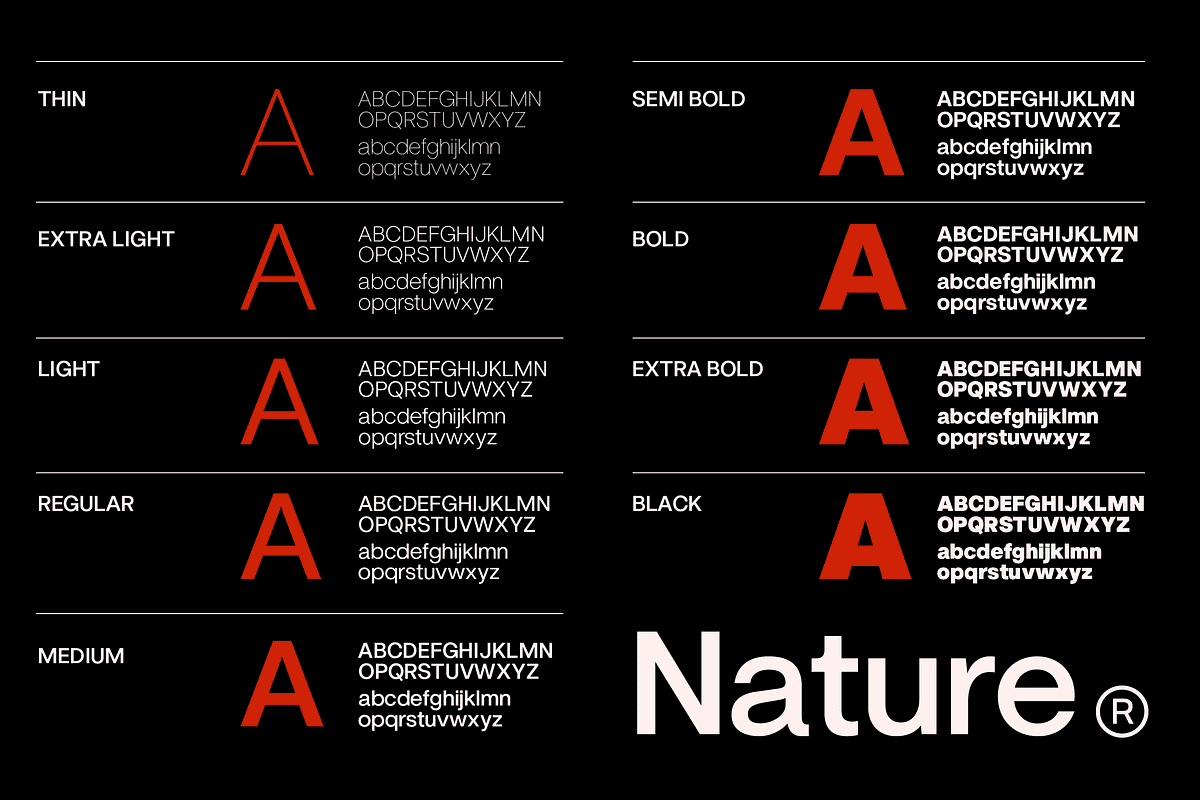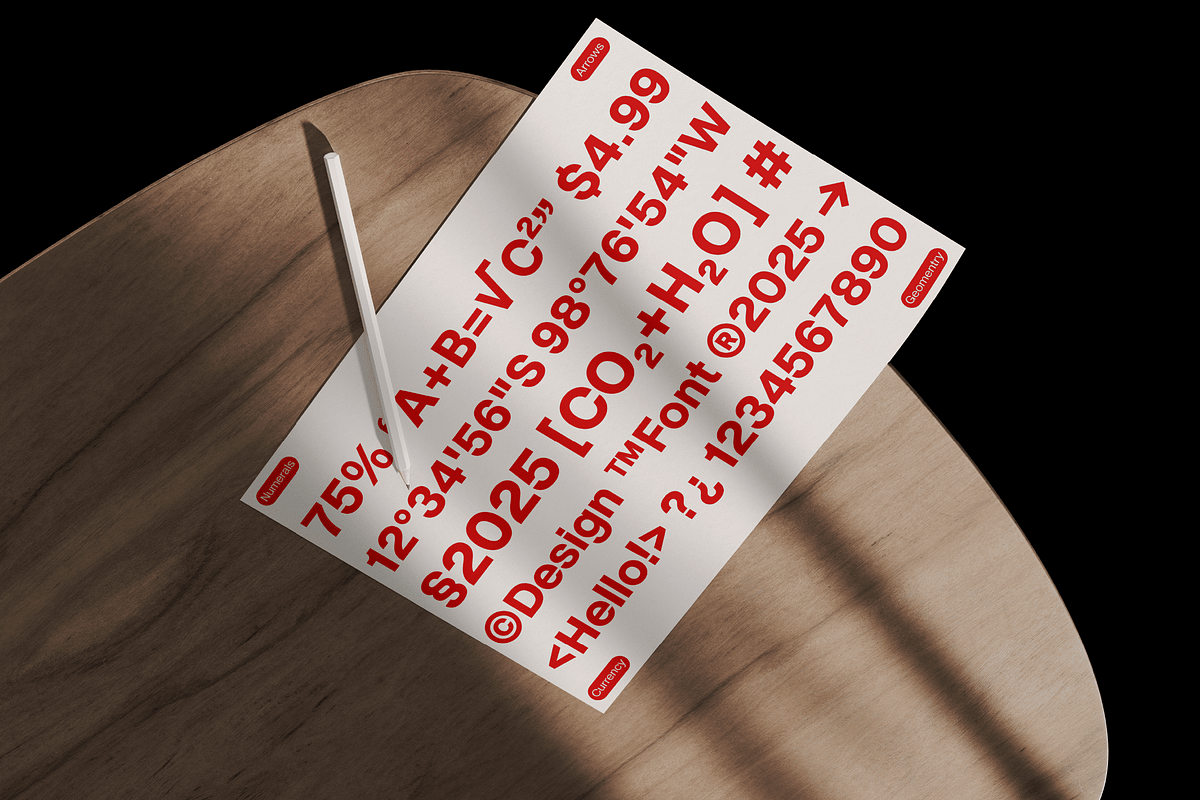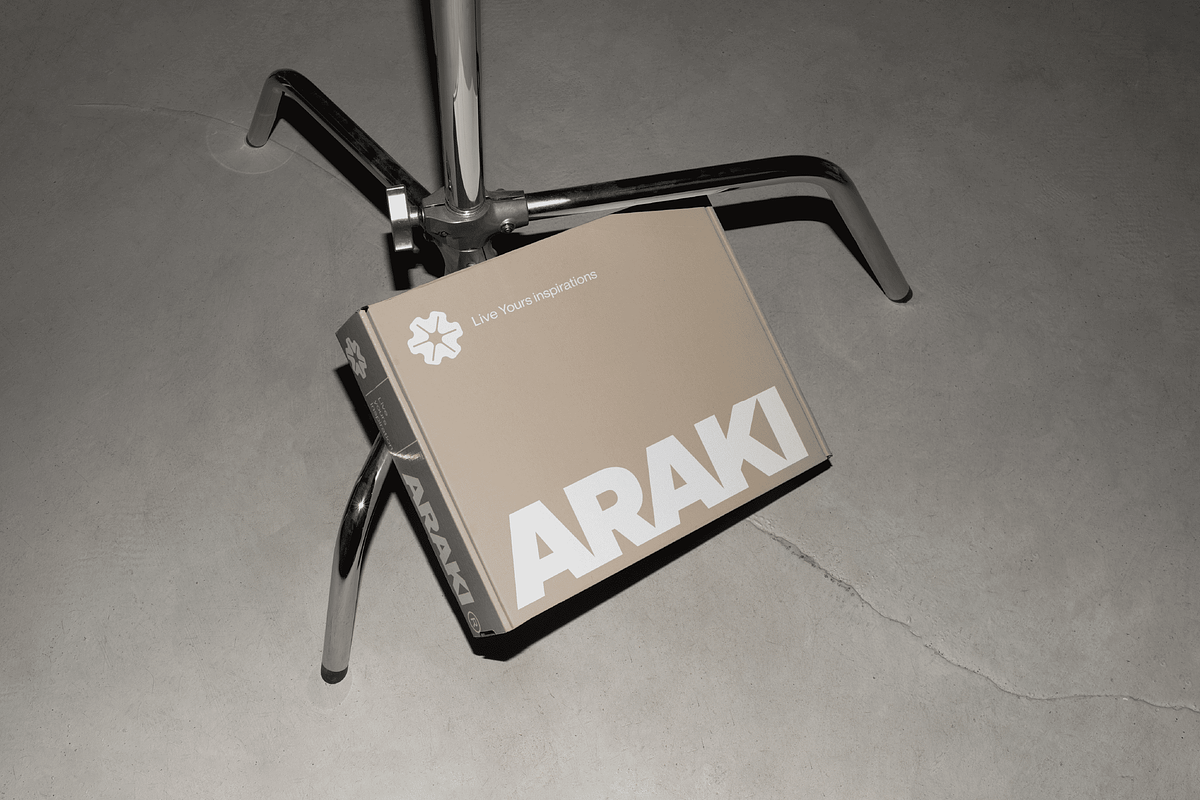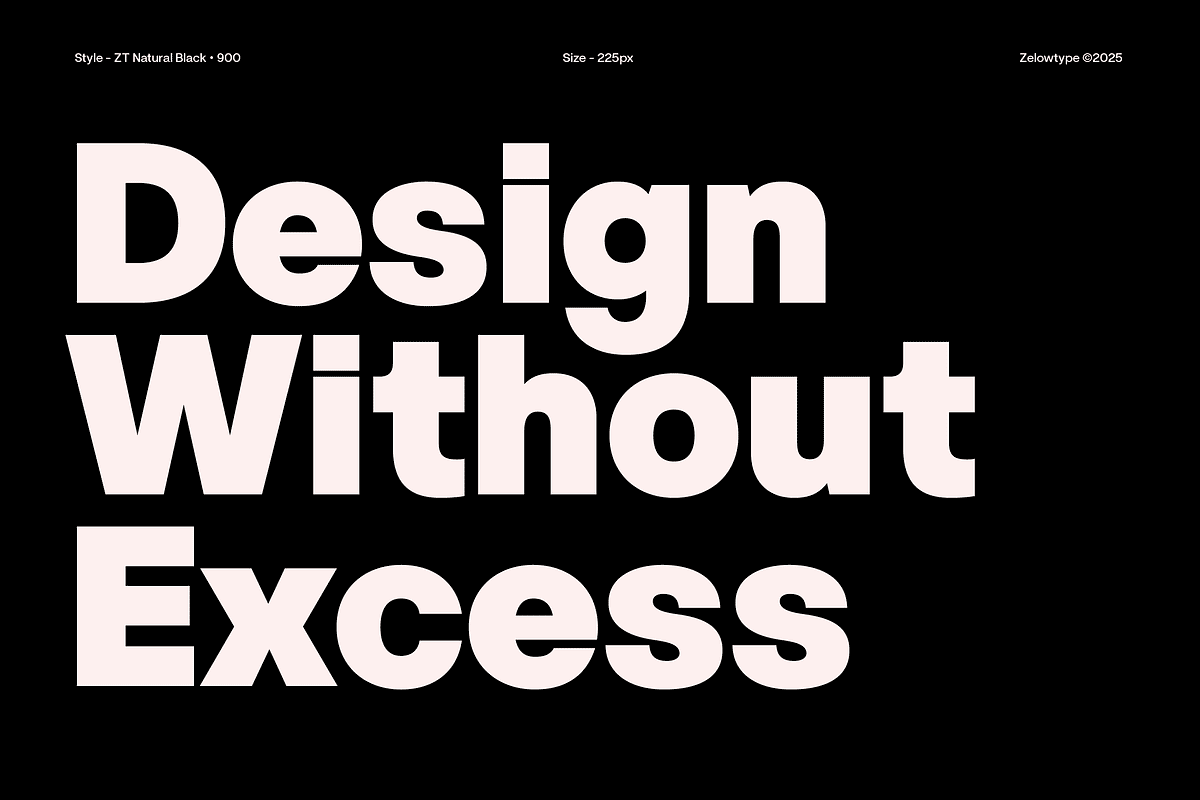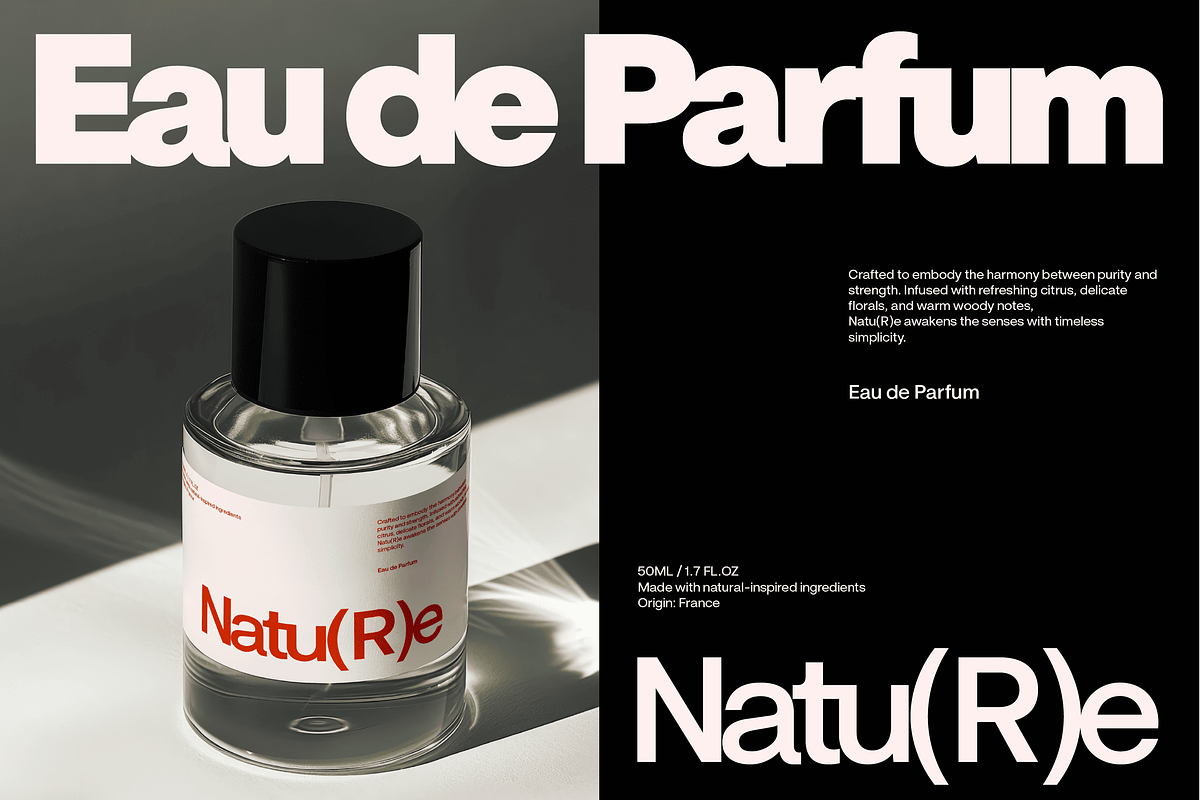
ZT Nature Sans - 18 Font & Variable
ZT Nature is a modern sans serif that combines geometric precision with an organic sense of rhythm.
Developed to function across both print and digital environments, it offers clarity, neutrality, and adaptability without losing its unique character. Designed for designers who value consistency and flexibility, ZT Nature serves as a reliable typographic tool for contemporary communication.
With 18 styles ranging from Thin to Black and 2 variable axes, the family provides complete control over weight and width. This makes it suitable for everything from branding systems and editorial layouts to user interfaces and digital products. Its structure is rooted in rational forms, yet softened with natural curves that enhance legibility and warmth.
The typeface contains 544 glyphs, supporting extended Latin languages, symbols, and typographic features essential for professional use. It has been carefully engineered to maintain optical balance across all weights, ensuring that ZT Nature performs equally well in large-scale displays and dense text settings.
ZT Nature is more than a font—it’s a framework for modern typography, designed to be timeless, versatile, and consistently dependable.and again.